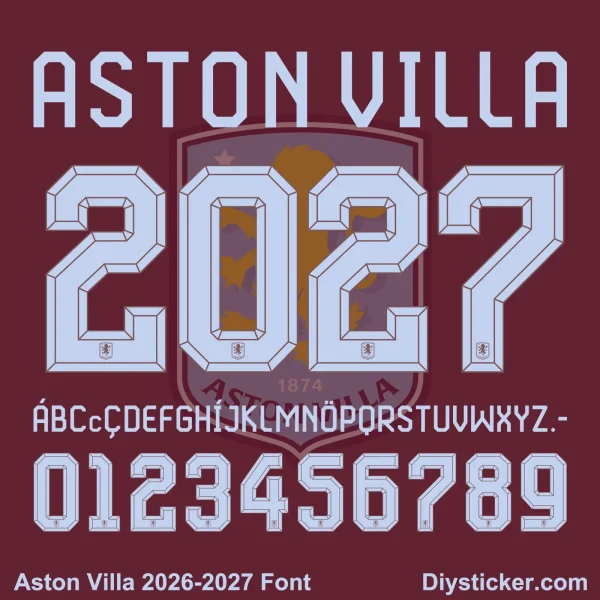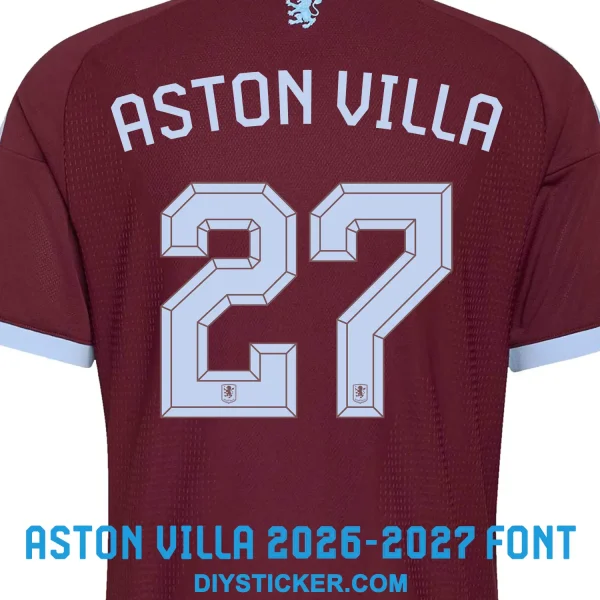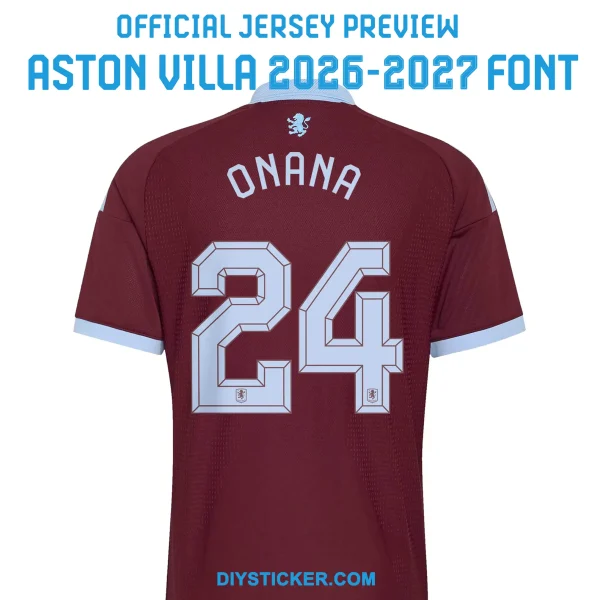
Get the exact look of the Villans’ new season kit! This digital download features the Aston Villa 2026-2027 Font and Numbers, meticulously designed for jersey customizing, graphic design, and DIY sports crafts.
Includes full alphabet, numbers, and special kit characters.
Upgrade Your Designs with the Aston Villa 2026-2027 Font
Are you looking to create authentic jersey prints, custom fan gear, or high-end sports graphics? This premium digital asset delivers the complete Aston Villa 2026-2027 font style used for the upcoming football season. Featuring a distinct 3D block geometry with inner line accents and the iconic team crest detailing inside the numbers, this font brings true English football aesthetics straight to your design workstation.
Complete A-Z Alphabet: All upper-case characters correctly spaced to replicate the official nameplates.
0-9 Number Set: Accurately detailed kit numbers featuring the distinctive dimensional look.
Special Characters & Accents: Includes specific punctuation marks and international accents (
Á,Ç,Ö, etc.) required for authentic player name spelling.